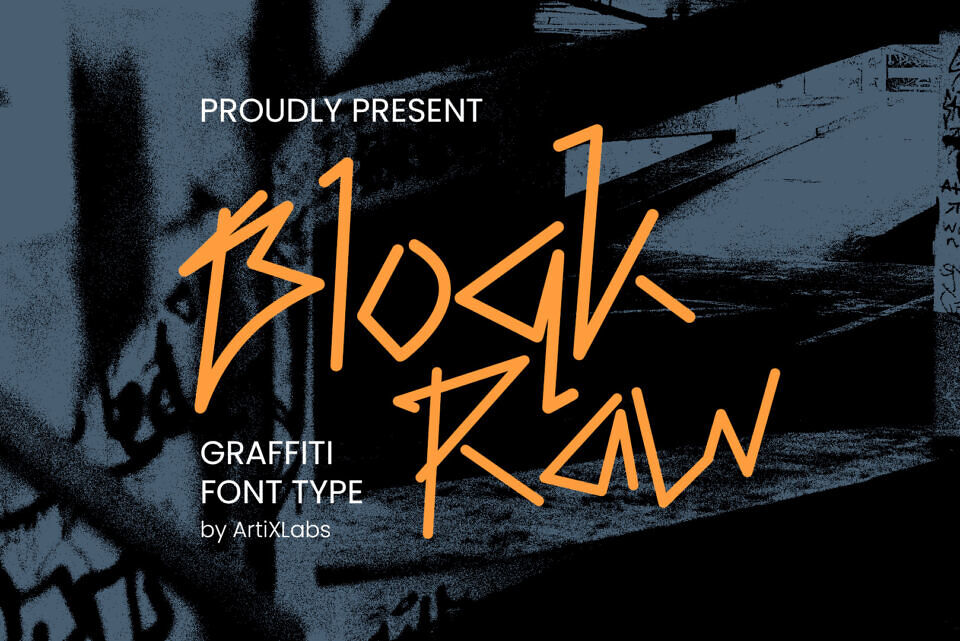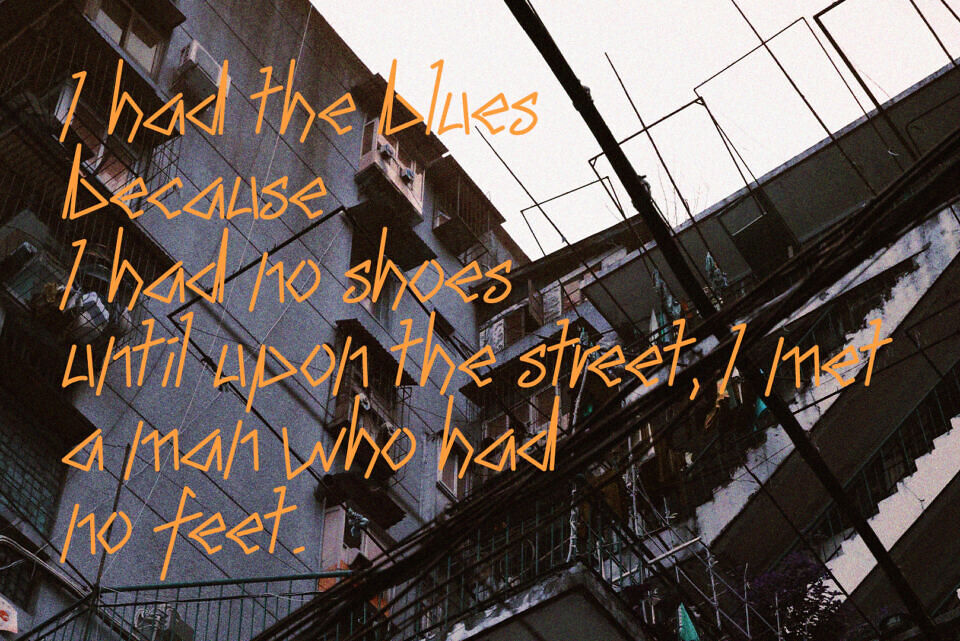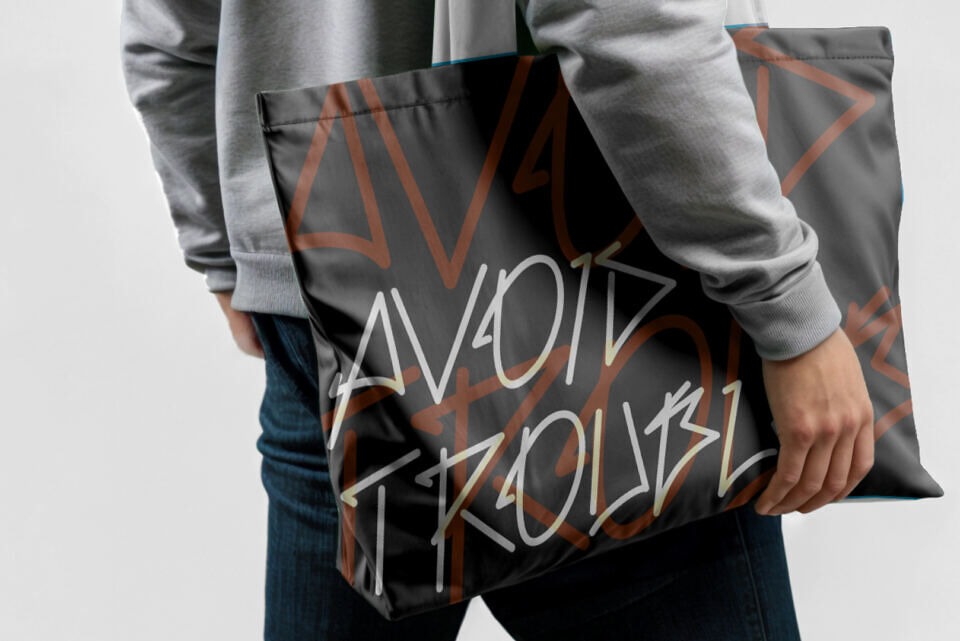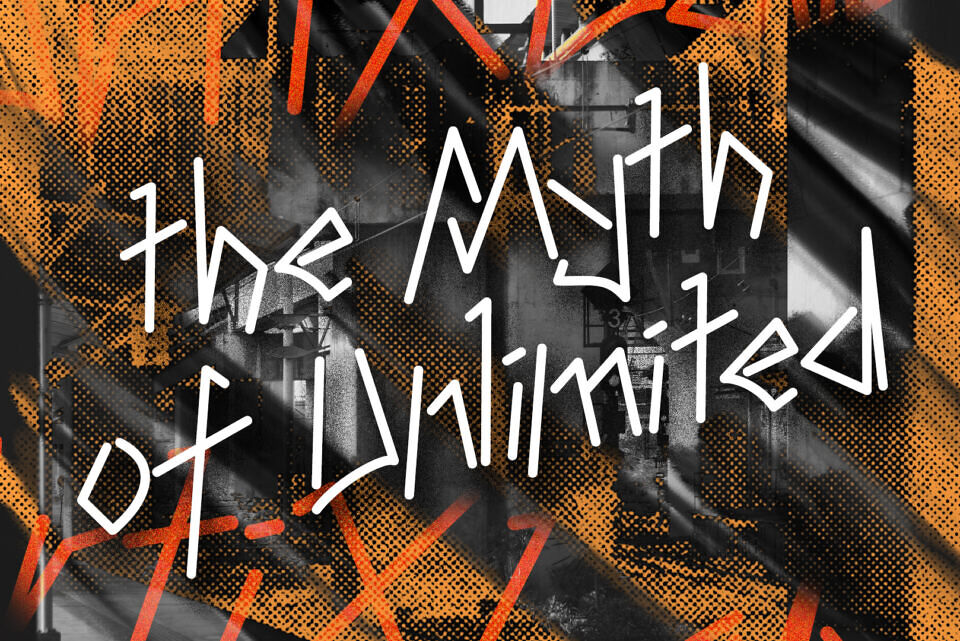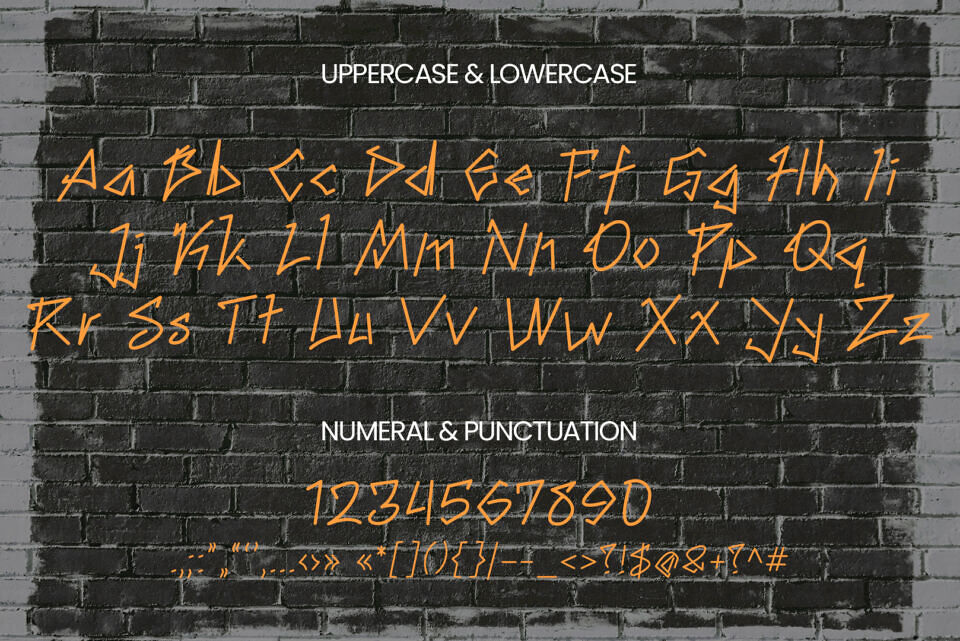
Meet BloqkRaw, a versatile graffiti font. It’s perfect for various projects, including photography, weddings, packaging, logos, branding, and more. This unique font embodies a street, wild, and urban concept, making it ideal for creative and edgy designs, from t-shirts to websites and magazines.